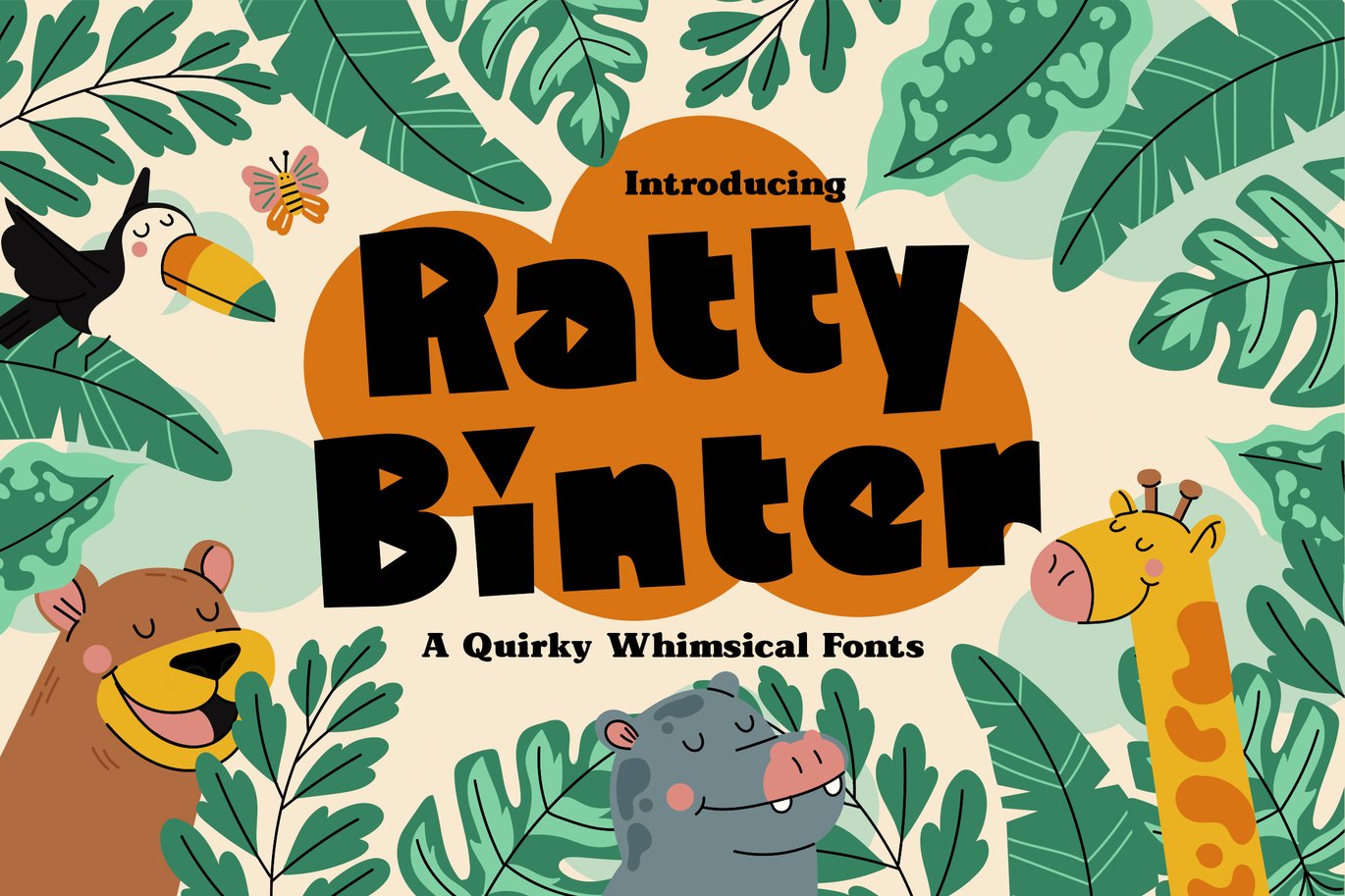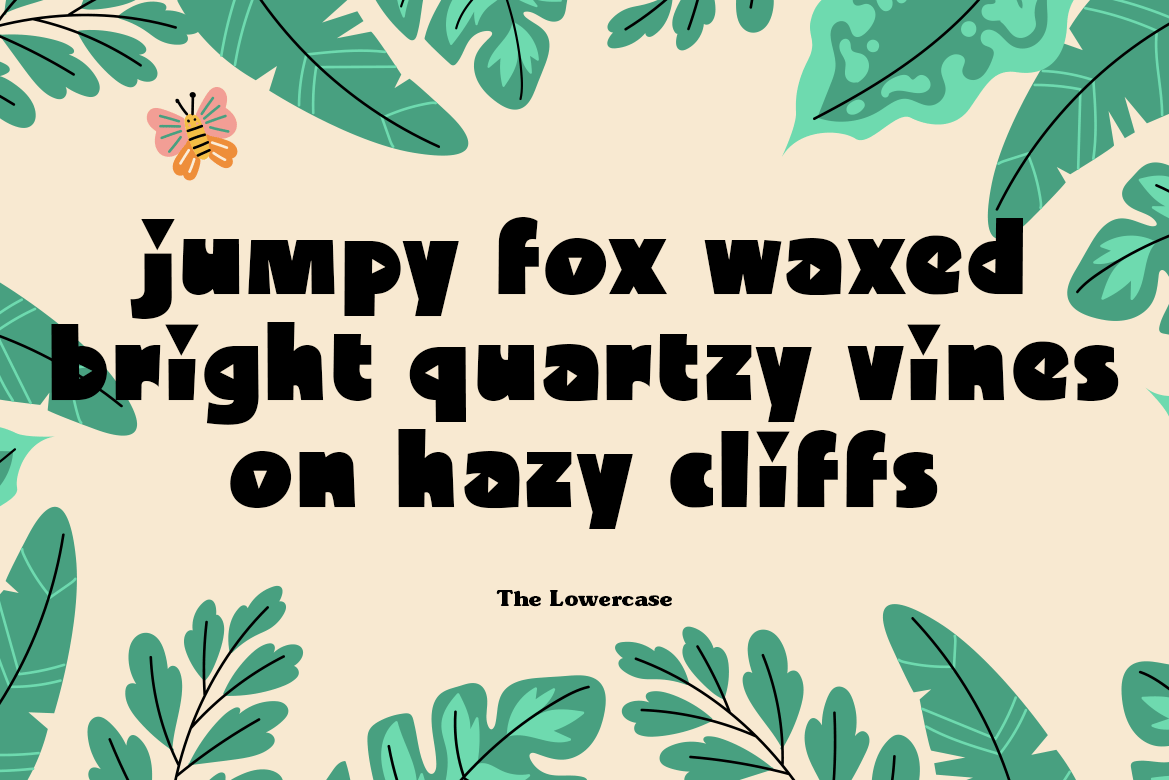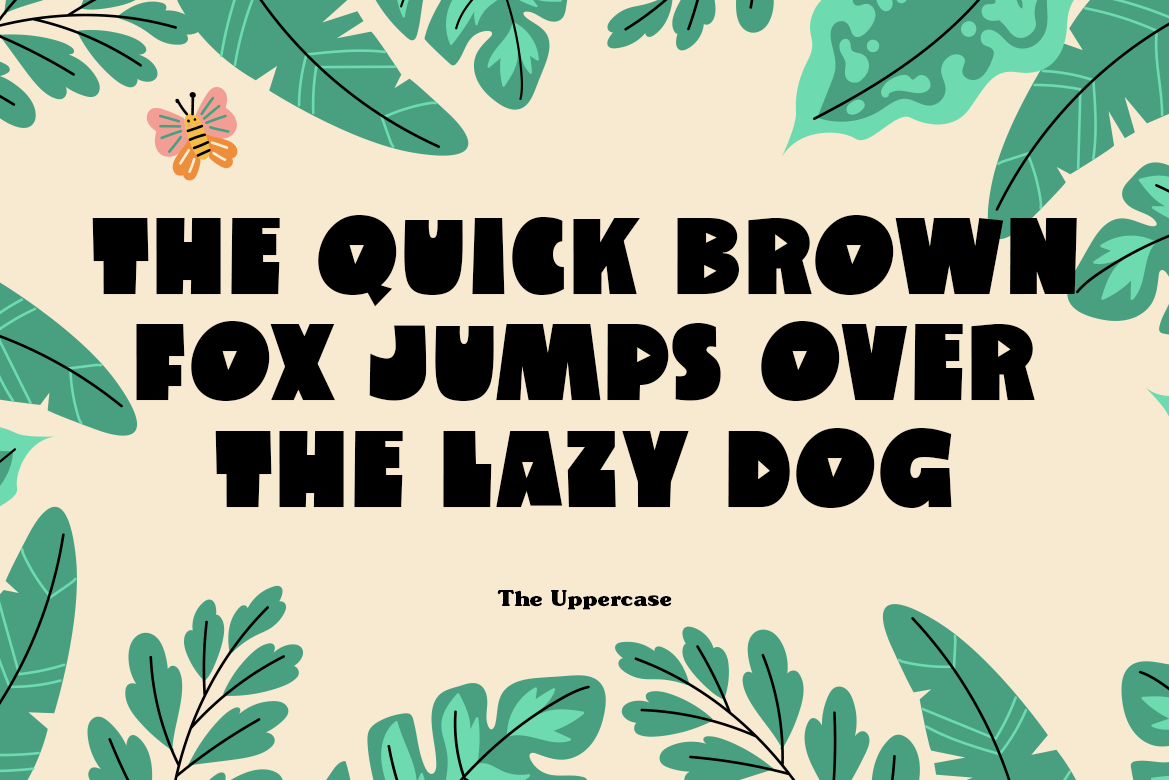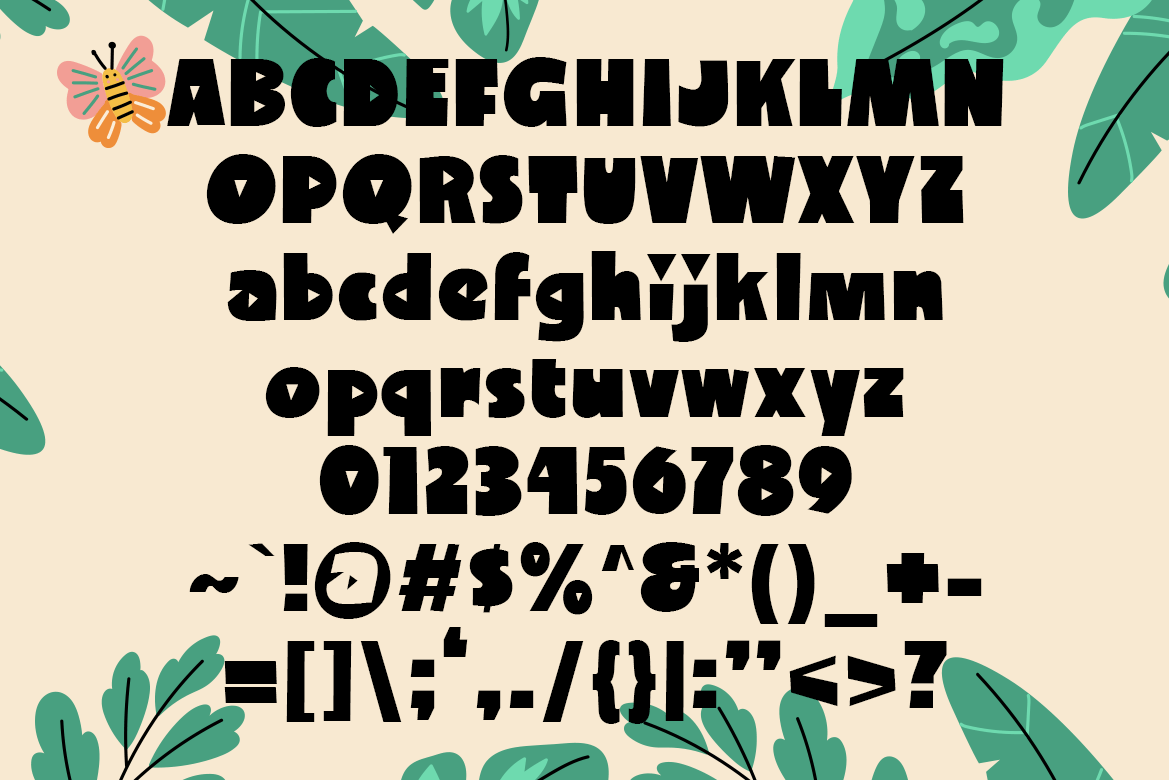
Ratty Binter – A Quirky Whimsical Fonts
Unleash the Fun with Ratty Binter!
Dive into a world of whimsy and wonder with Ratty Binter! This playful font brings quirky shapes and cheerful vibes to any project, making it the perfect choice for:
- Kids Posters – Bring youthful excitement to every word
- Movies & Cartoons – Let every title shine with personality
- Storybooks – Make every page a playful adventure
- Toys & Games – Add charm to your packaging and branding
Designed to captivate young hearts and spark creativity, Ratty Binter is the go-to font for adding a dash of joy to everything from posters to storybooks and more. Explore the magic of Ratty Binter and watch your designs come to life with a fun, playful vibe!